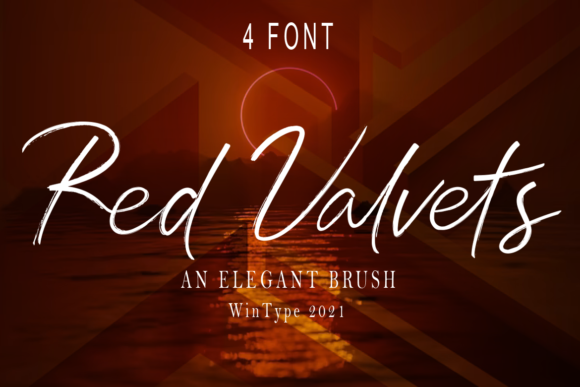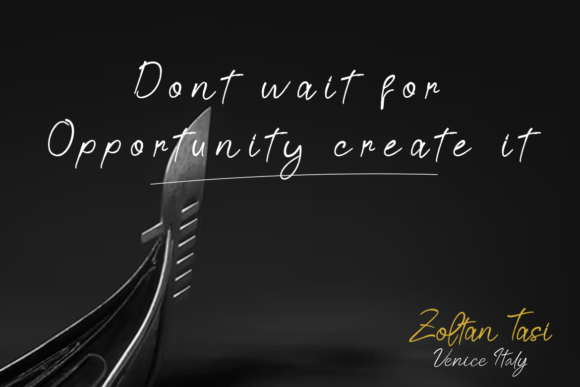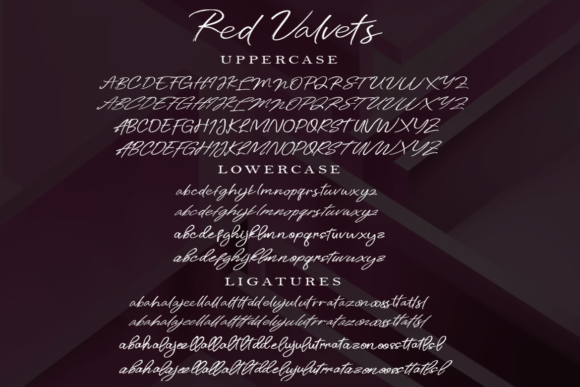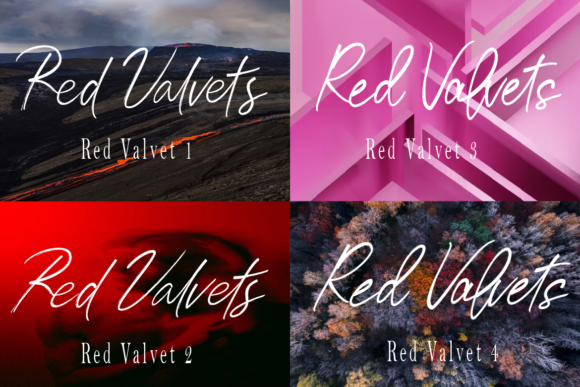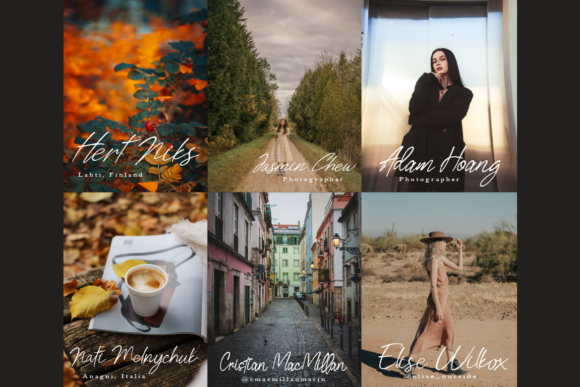
Red Valvets Font
About Red Valvets Font
Red Valvets is a lovely and timeless handwritten font. It is the best choice for creating eye catching logos, branding and quotes. This font is PUA encoded which means you can access all of the glyphs and swashes with ease!